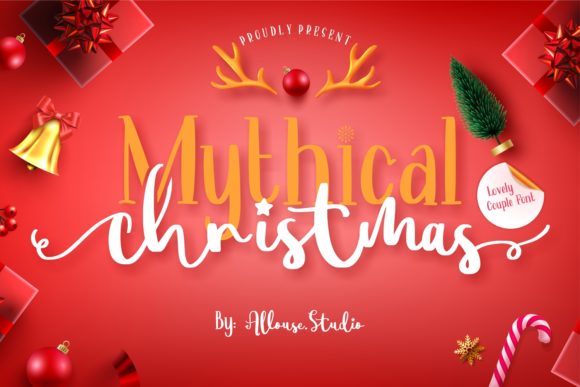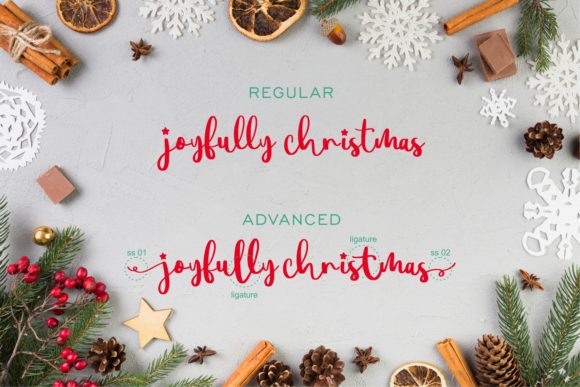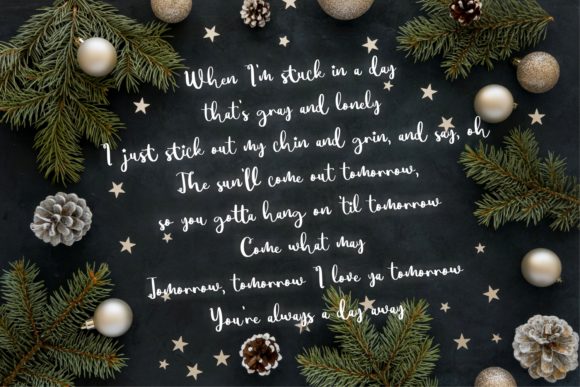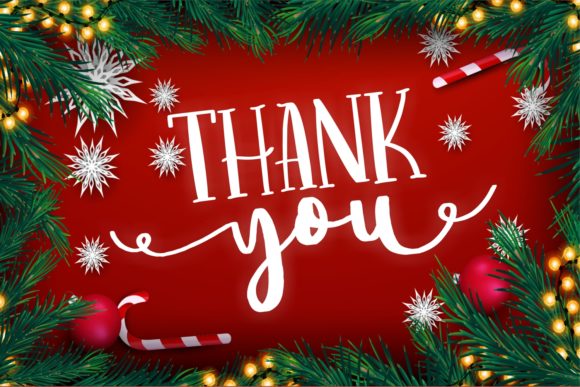
About Mythical Christmas Font
Mythical Christmas is a lovely versatile handwritten font. Not too thin and not too thick, balanced and varied, this font was designed to enhance the beauty of your projects.